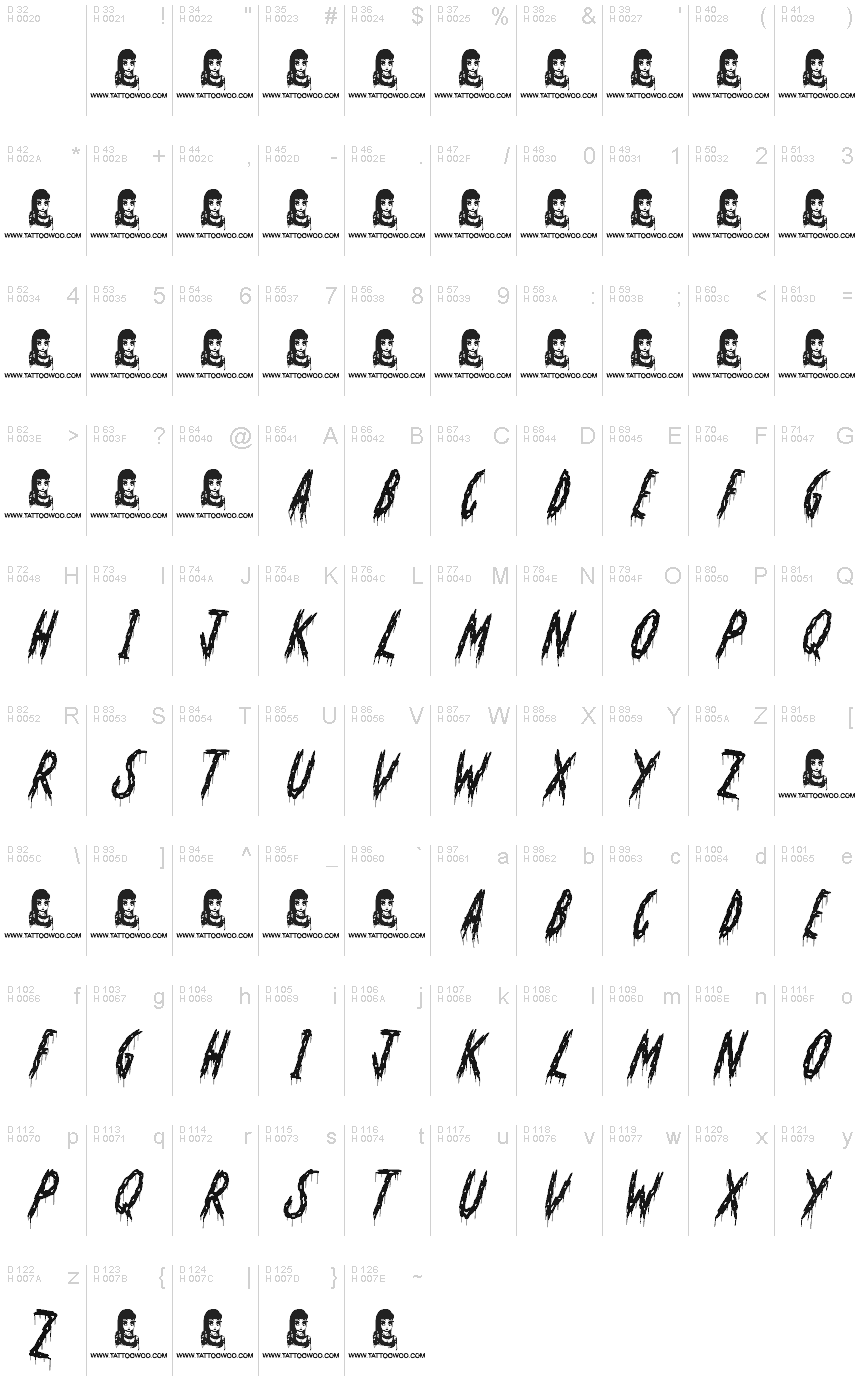
Oh No Not Again
"Oh No Not Again" is a bold, unsettling display font crafted by JSH creates. Its jagged, distorted letterforms evoke a sense of unease, perfectly suited for horror-themed designs or projects requiring an ominous aesthetic. The condensed width lends an intense, claustrophobic feel, while the "scary" style imbues the text with a visceral, almost visceral quality.
This font excels at grabbing attention and setting a dark, foreboding tone, making it an excellent choice for book covers, movie posters, or any application where a jarring, unsettling visual impact is desired.